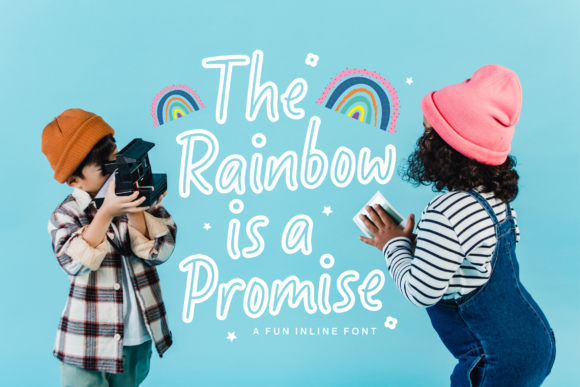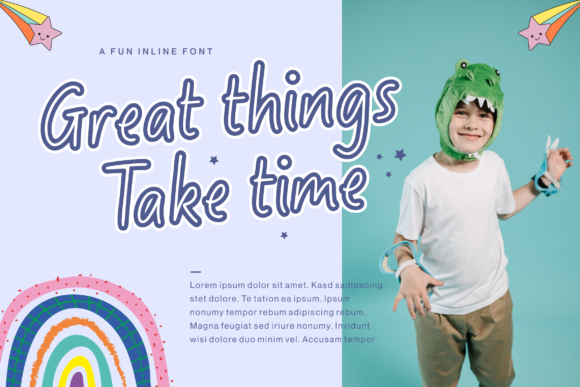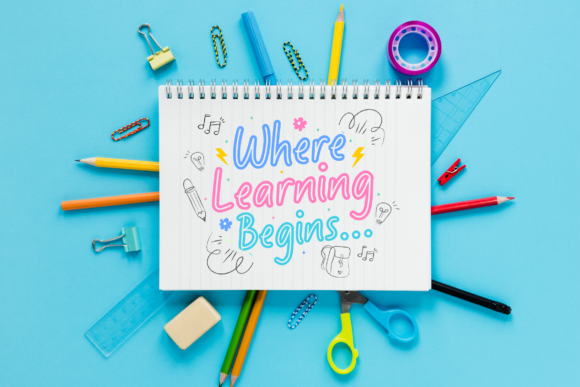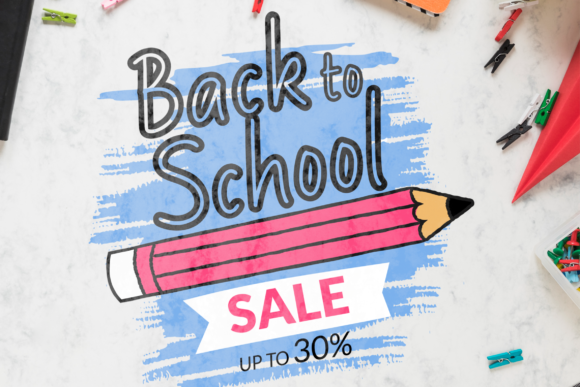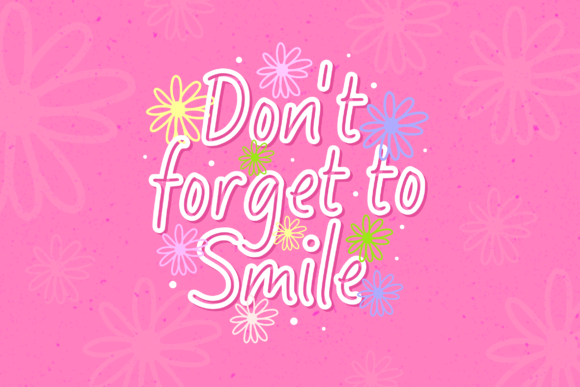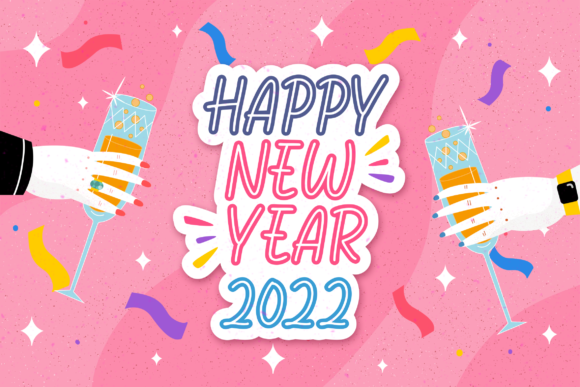
Introduction to Holykadot Font
Have you ever stumbled upon a design that instantly captured your attention and made you stop scrolling? For me, that moment happened when I saw a beautifully crafted wedding invitation featuring the Holykadot Font. Its playful, whimsical feel was the perfect complement to the elegant design. I was hooked and couldn’t help but wonder what made this font so special.
As a designer, I can attest that finding the right font can make all the difference in bringing a creative project to life. That’s why I’m excited to share with you the Holykadot Font, a high-quality display font that’s perfect for adding a touch of personality to your designs. Whether you’re working on product packaging, branding projects, or social media posts, this font is sure to stand out and make your work shine.
Key Features of Holykadot Font
- High-quality vector design with transparent background, ideal for creative projects and designs that require a unique touch.
- Designed with a modern aesthetic, Holykadot Font is perfect for adding a touch of sophistication to any design project.
- Perfect for use in various design resources, including logos, branding materials, and creative projects that require a unique font style.
- Unique characteristics include a distinctive, hand-drawn feel and a wide range of character combinations, making it suitable for a variety of creative applications.
Honest Review: Holykadot Font
- ✨ Unique and creative style that can add a touch of personality to any design
- ✨ High-quality design that’s perfect for printing or digital use
- ✨ Transparent background makes it easy to customize and combine with other design elements
- ⚠️ Limited character set, which may not be suitable for extensive text-based designs
- ⚠️ Not ideal for use in very small font sizes, as the design may become distorted
Tips for Getting the Most Out of Holykadot Font
Holykadot Font is ideal for design projects that require a touch of sophistication and elegance. Use it for creative projects, such as:
- Wedding invitations
- Birthday cards
- Website headers
- Blog posts